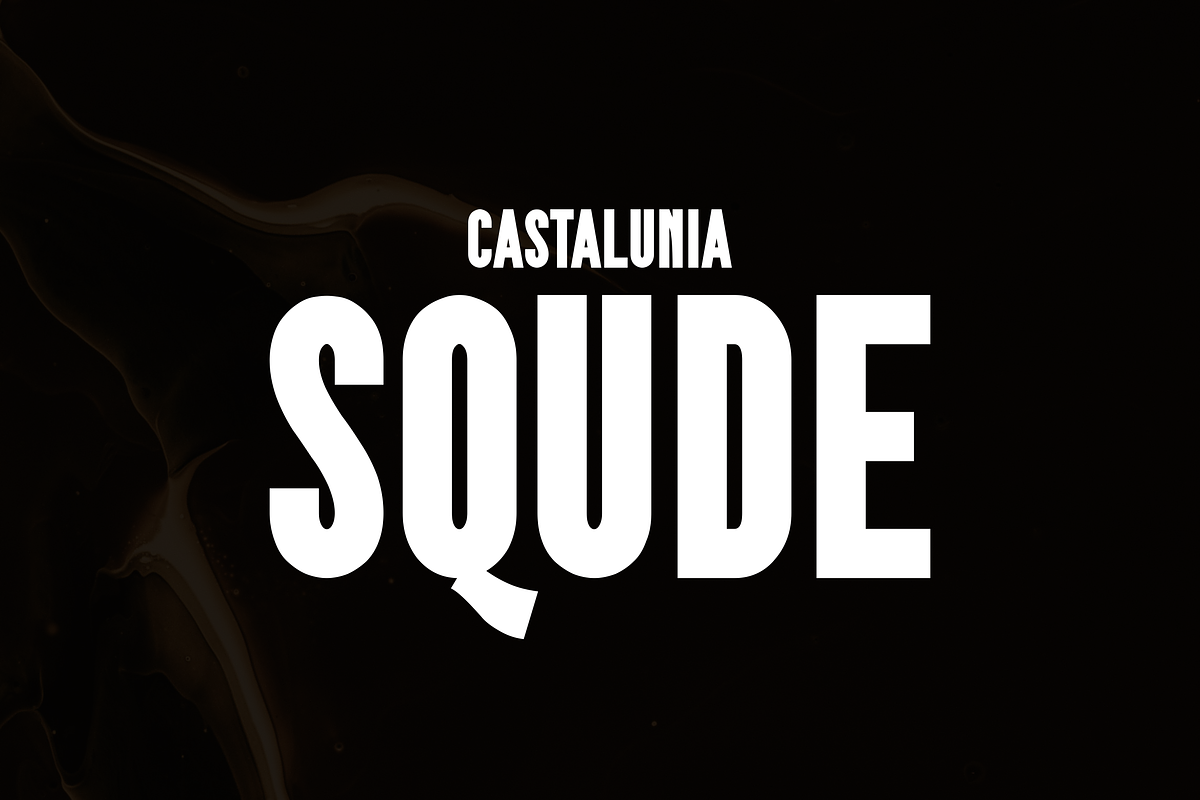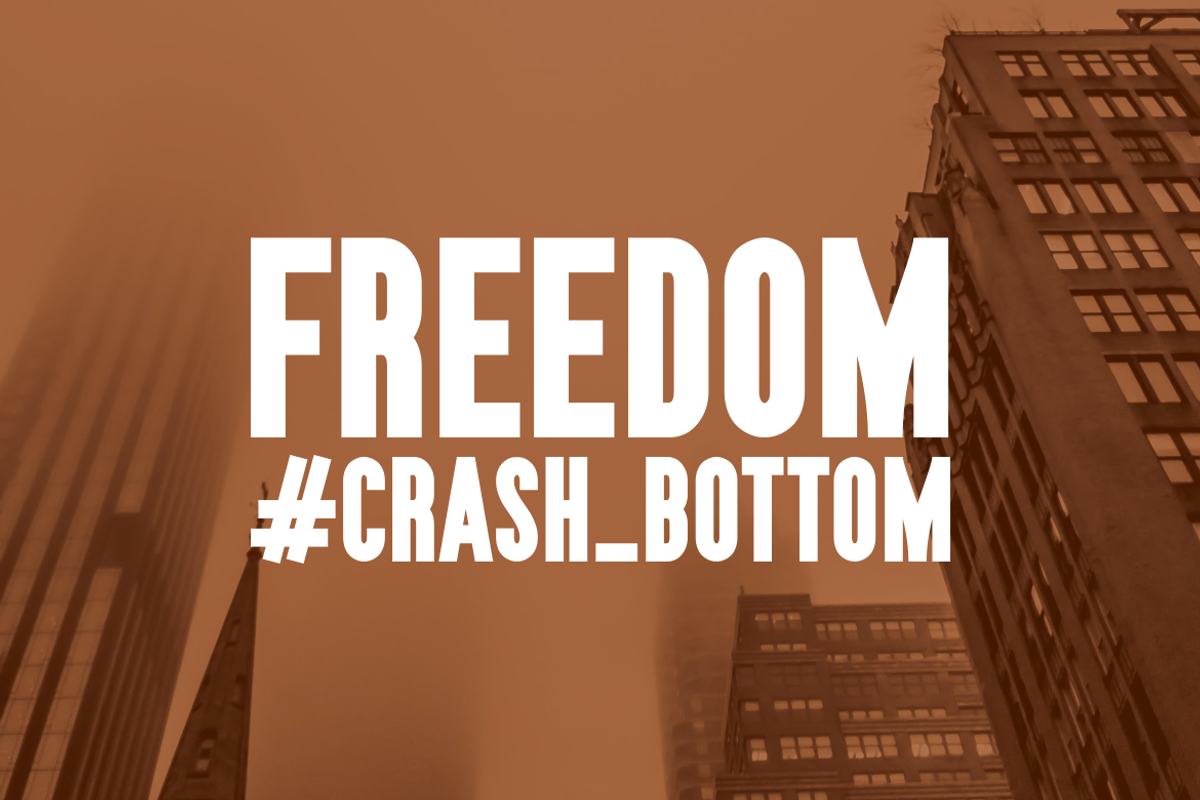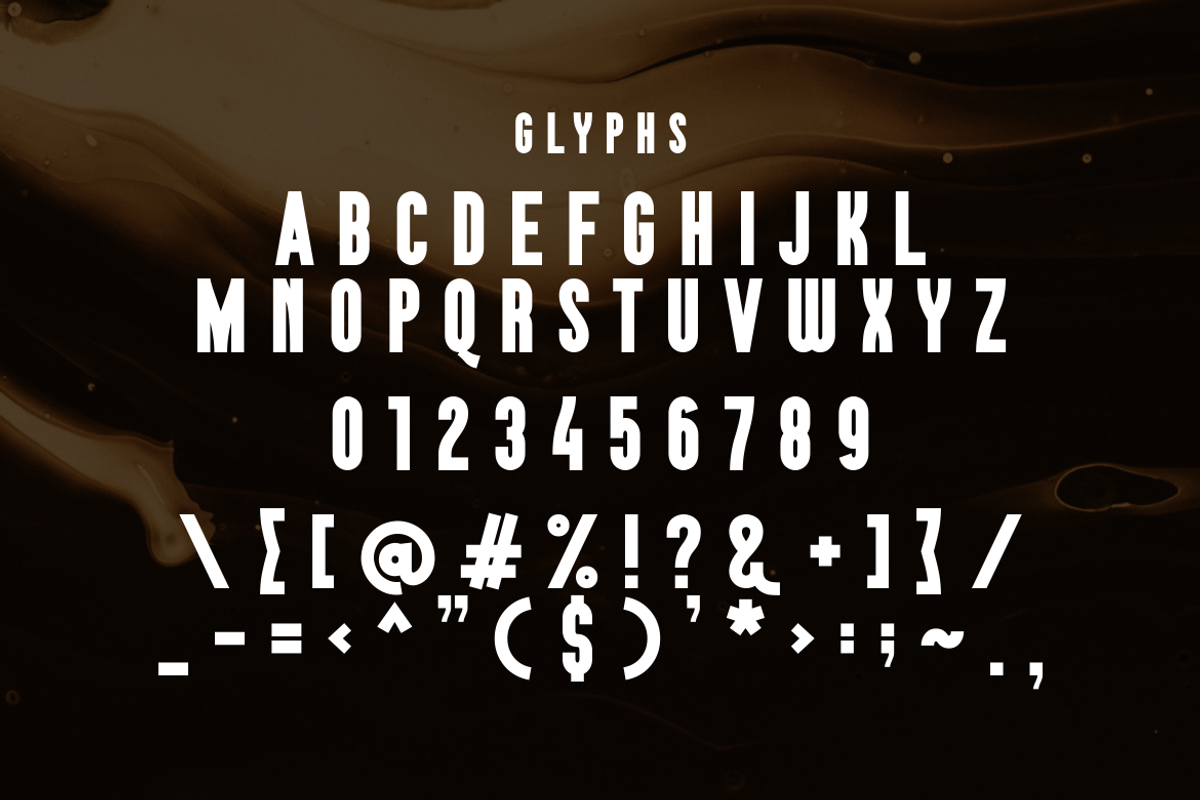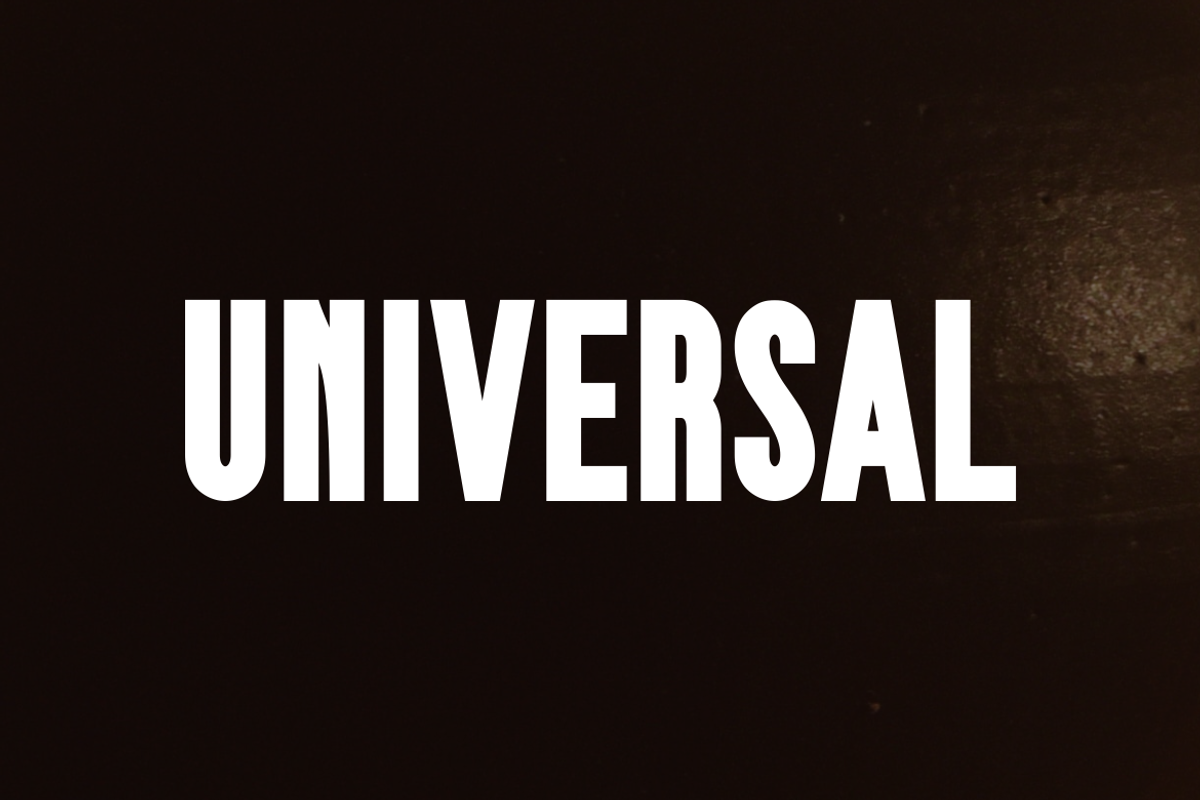
Squde Castalunia
This font, Squde Castalunia, is my creation. It is a bold and elegant serif font with a timeless aesthetic, designed to elevate any project. Perfect for wedding invitations, logo designs, branding, editorial layouts, and social media posts, Squde Castalunia brings sophistication and versatility to your creative work.